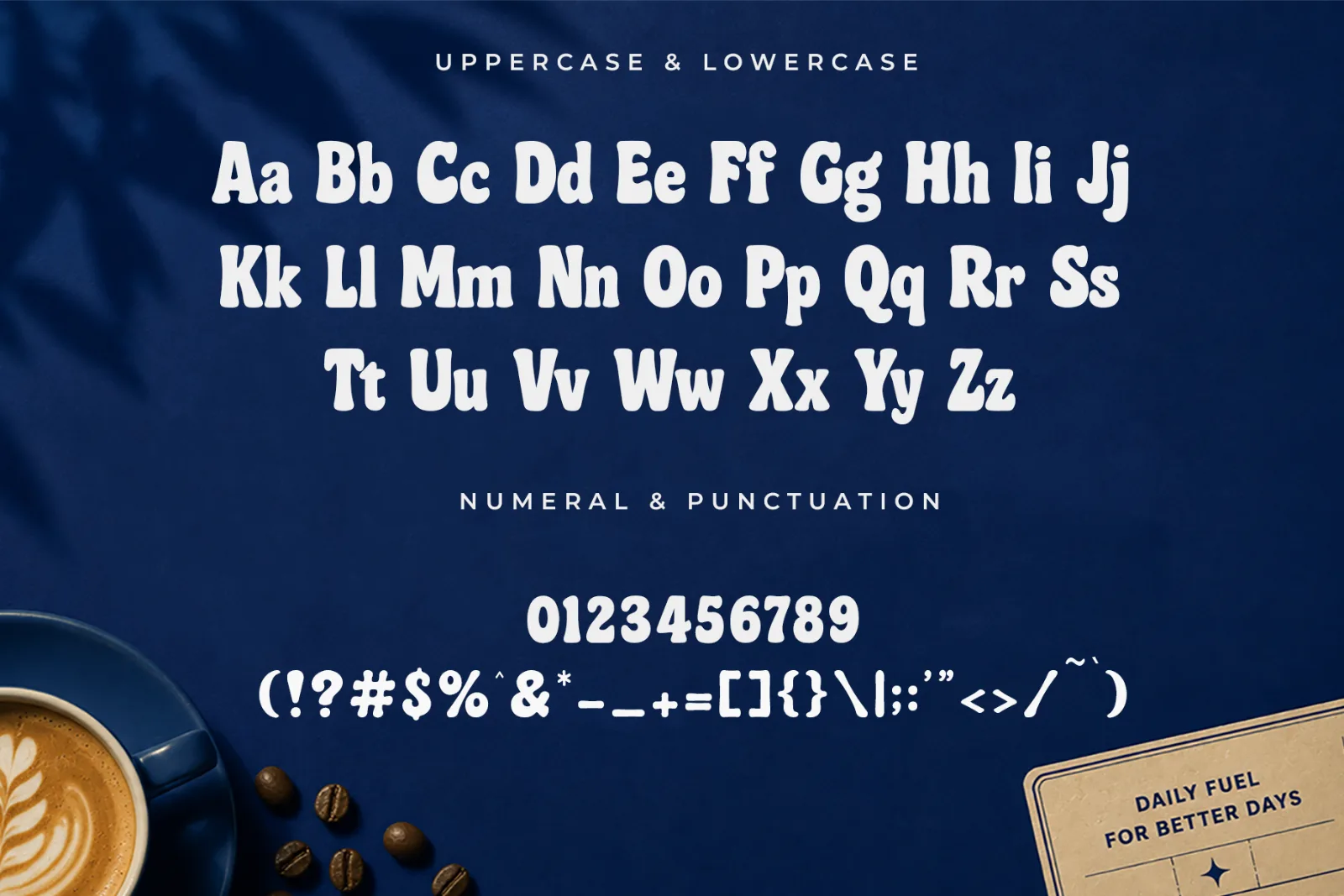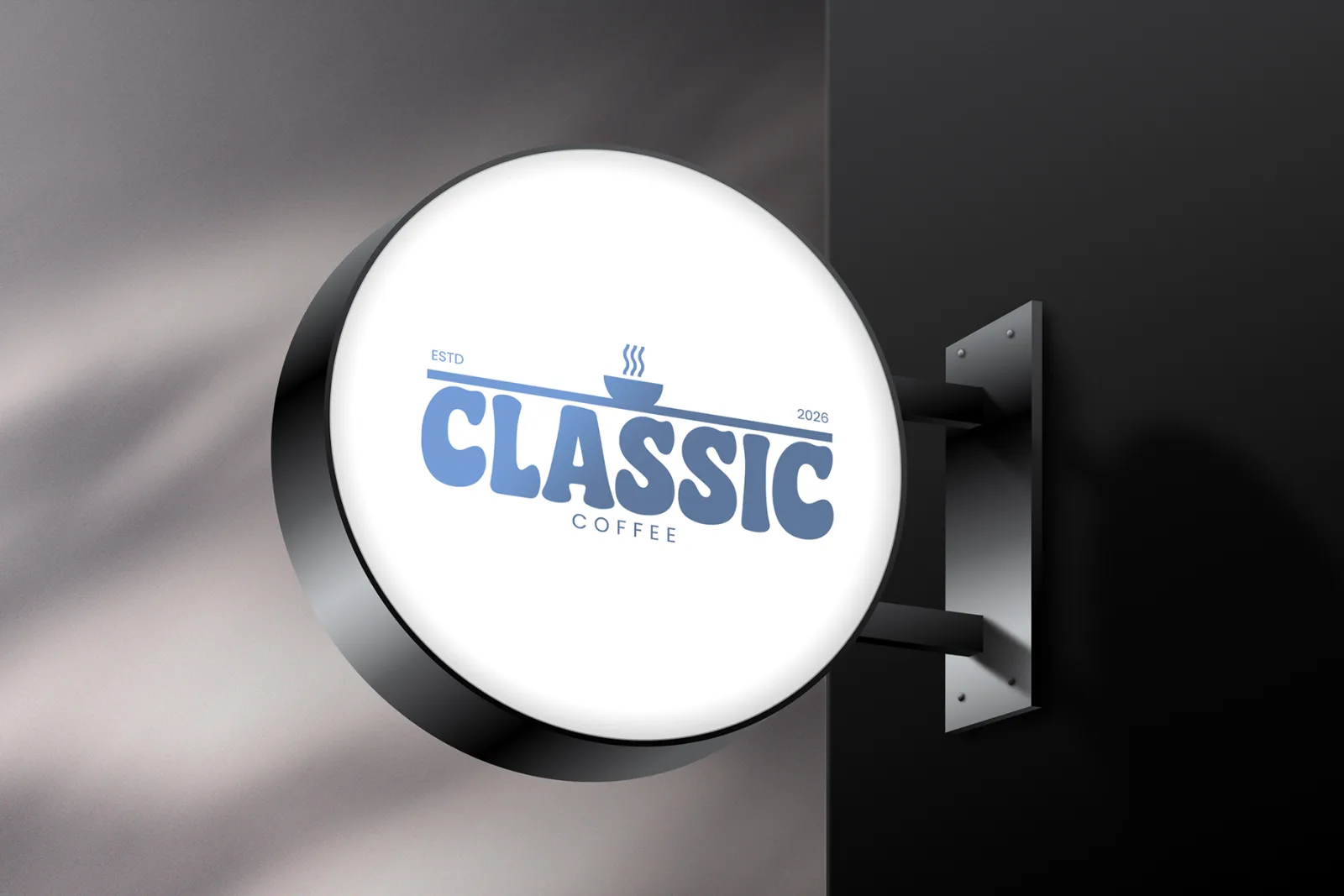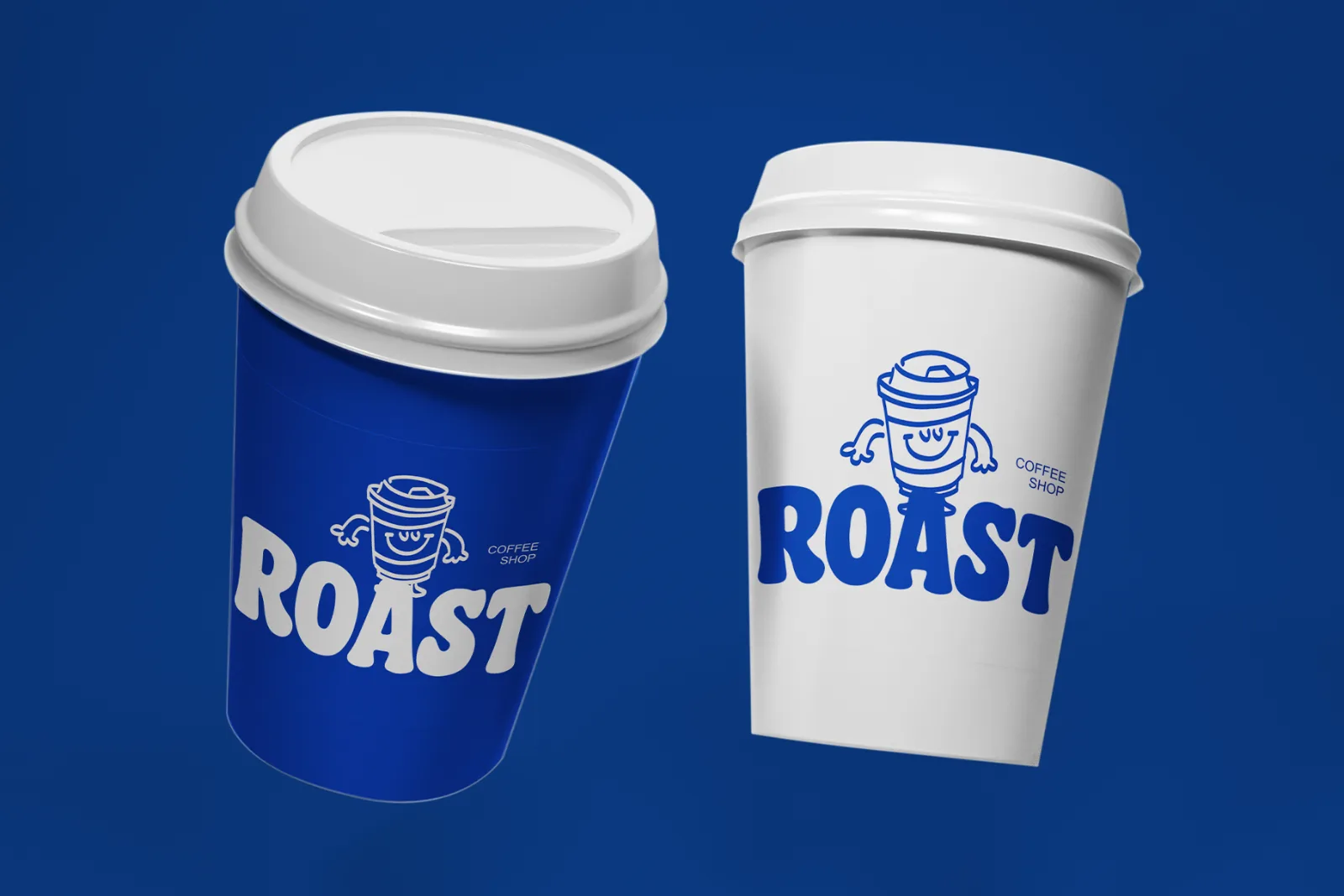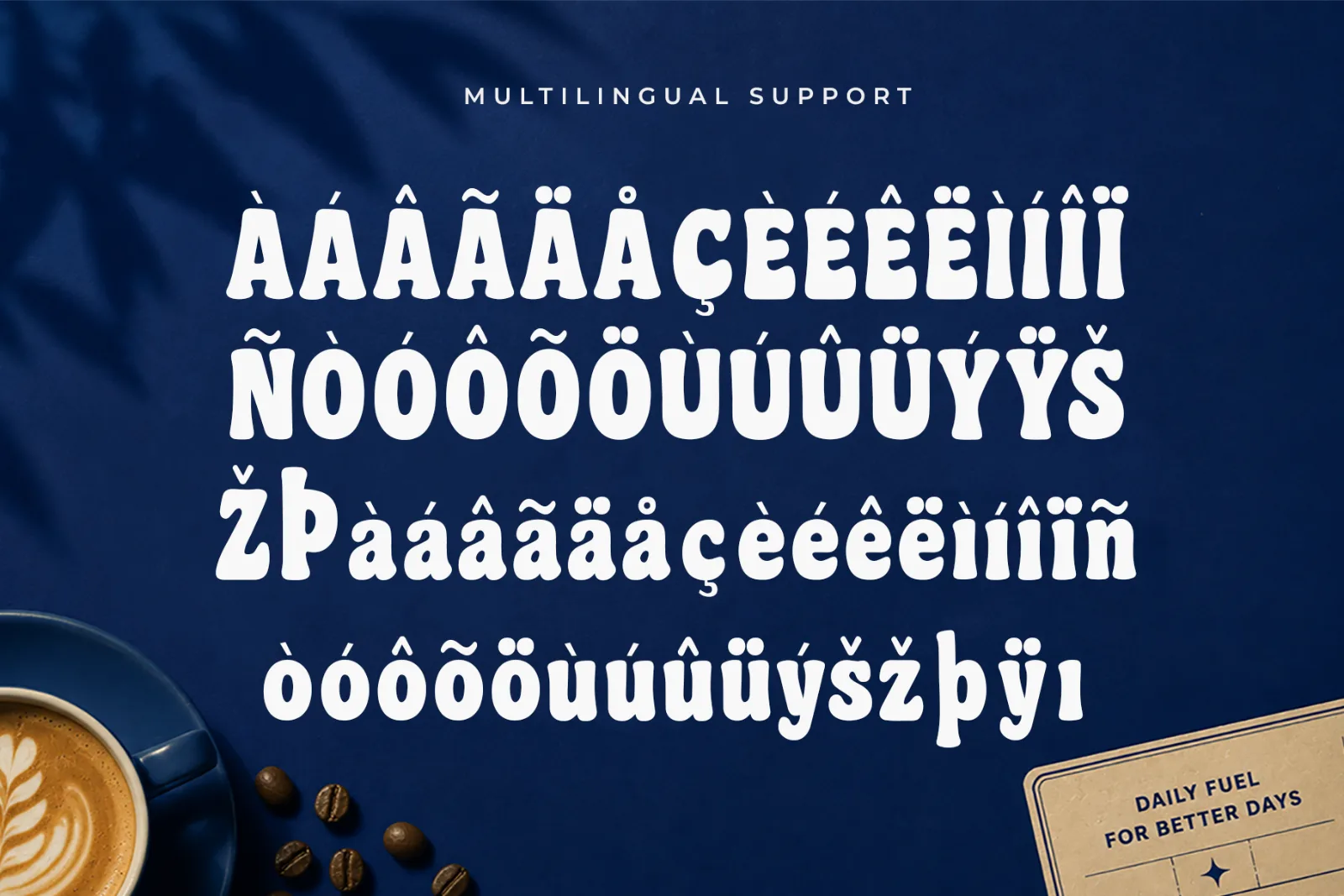
Orville – Retro Rounded Display Font
Orville is a bold retro rounded display font with soft curves, chunky proportions, and a warm vintage personality. Its friendly letterforms combine nostalgic character with a clean modern feel, making it perfect for eye-catching branding and lifestyle design.
Designed to stand out in headlines and logos, Orville works beautifully for coffee shop branding, packaging, posters, labels, merchandise, editorial graphics, and creative projects that need a relaxed yet memorable visual identity.
Perfect for:
- Coffee Shop Branding
- Logos & Headlines
- Packaging Design
- Café & Restaurant Identity
- Posters
- Labels & Stickers
- Merchandise
- T-Shirts
- Editorial Graphics
- Social Media Content
- Lifestyle Branding
- Retro-Inspired Designs